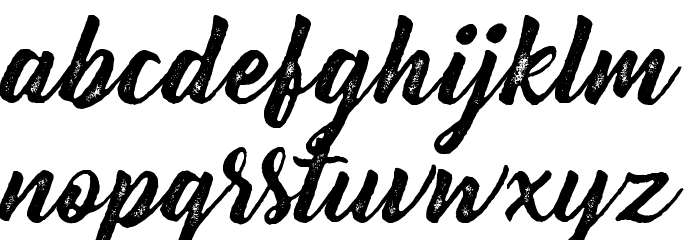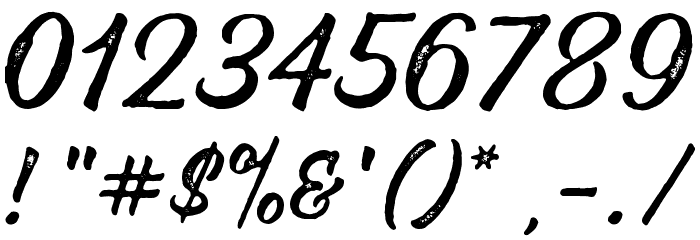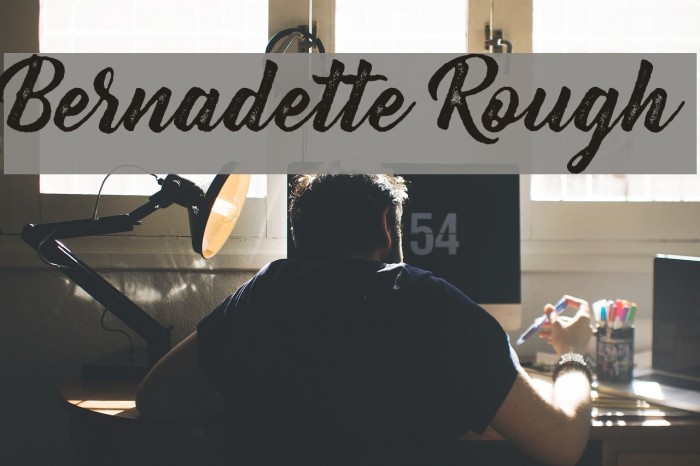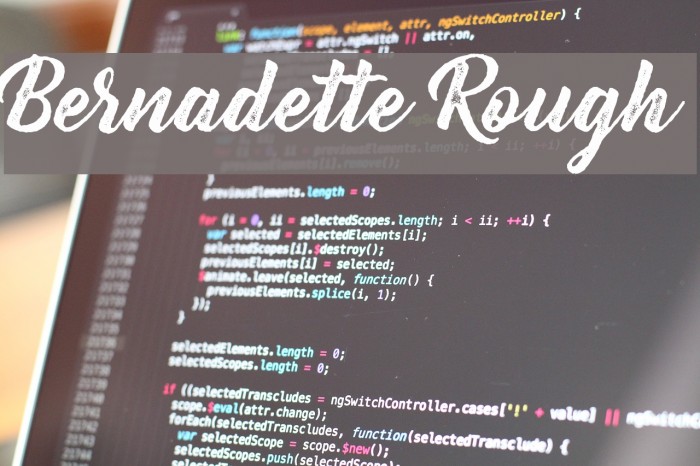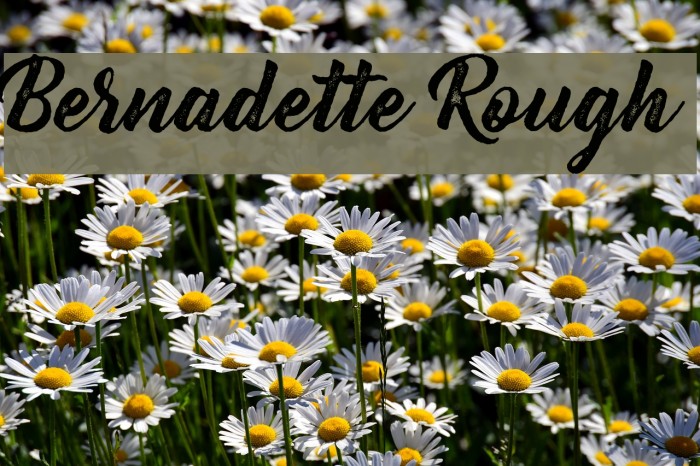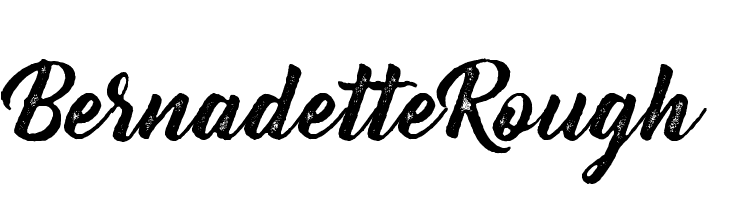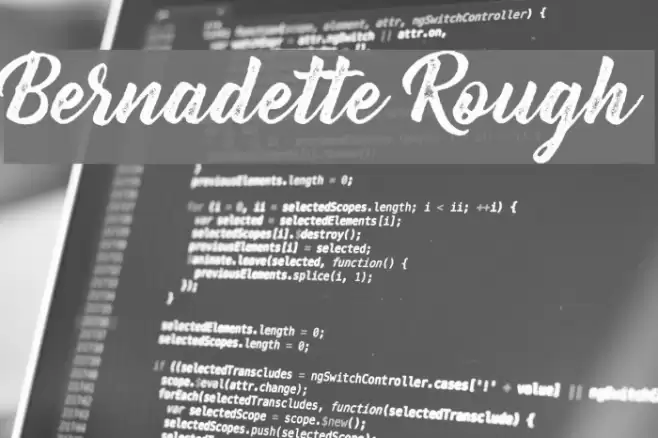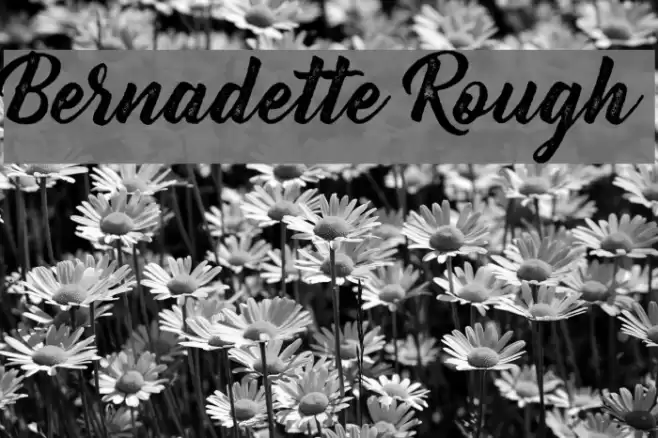
Bernadette Rough Font
This font features a bold, textured script style that mimics the appearance of hand-painted brush strokes. The letters are connected, giving it a flowing, cursive look, while the rough edges add a rustic and artistic feel. The uppercase letters are slightly larger and more prominent, while the lowercase letters maintain a consistent size and style. The numbers and special characters follow the same textured and flowing design, ensuring a cohesive appearance across all characters. This font's unique texture and style make it stand out, providing a handcrafted and personal touch.
A bold, textured script font with a hand-painted brush stroke appearance.
- Proposed Projects: Ideal for branding, packaging, invitations, and artistic projects that require a personal and handcrafted touch.
- Use Case: Logos, Headlines, Artistic projects